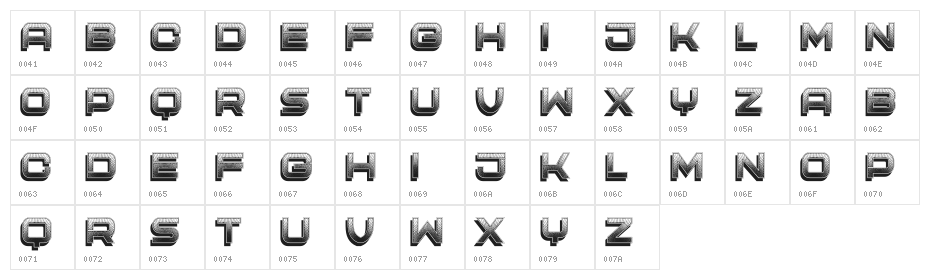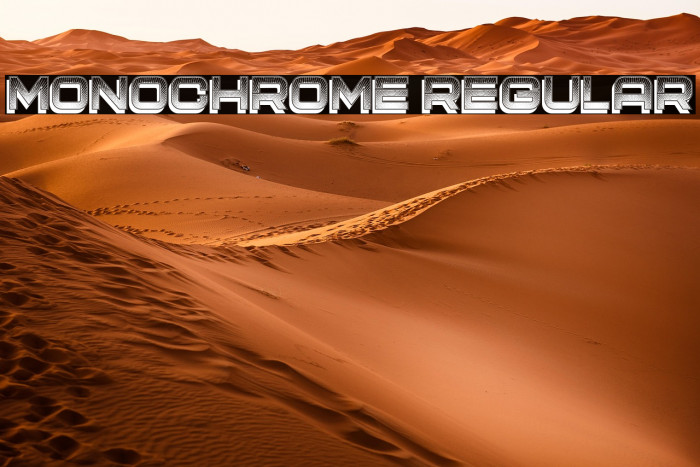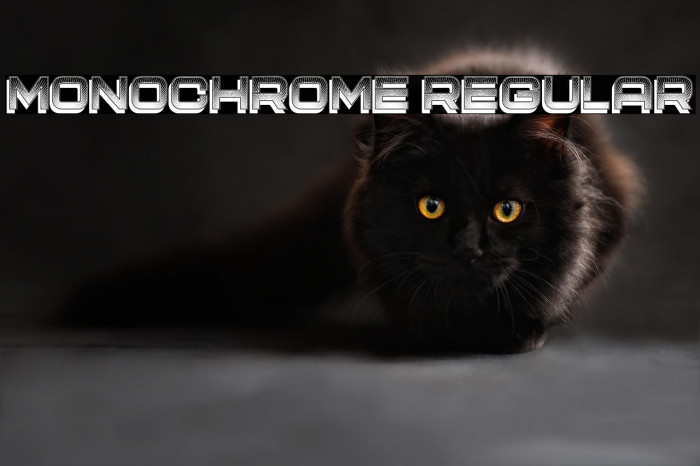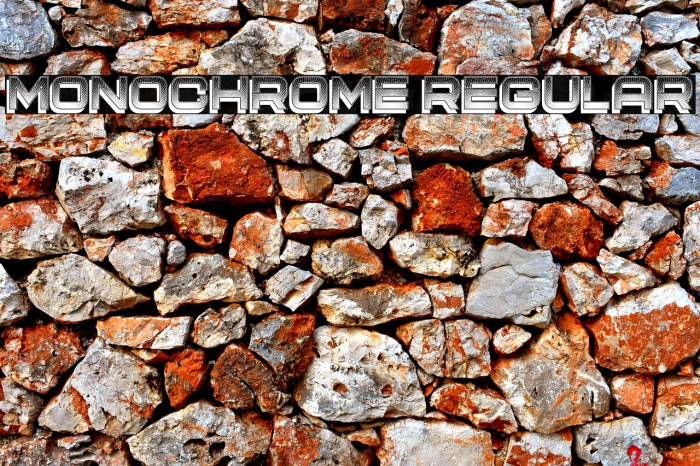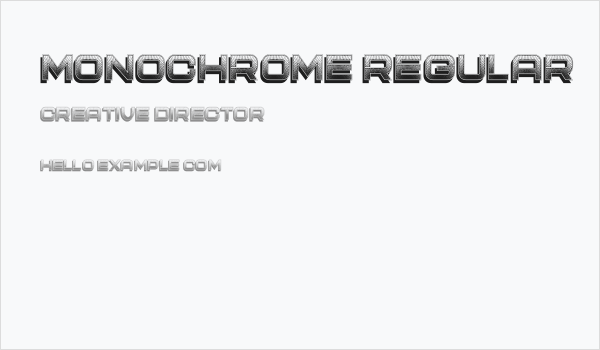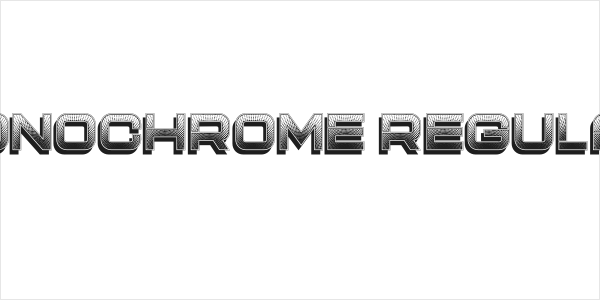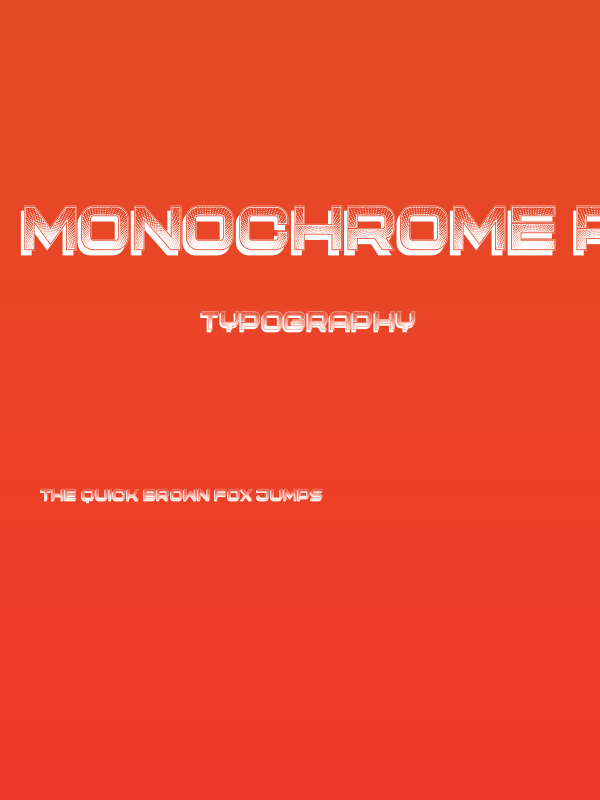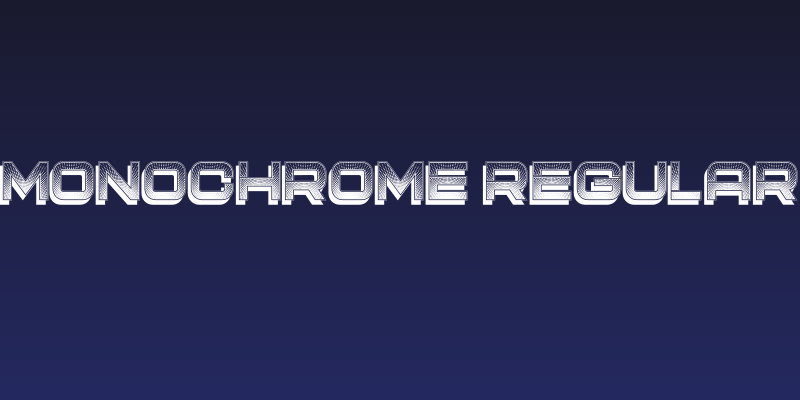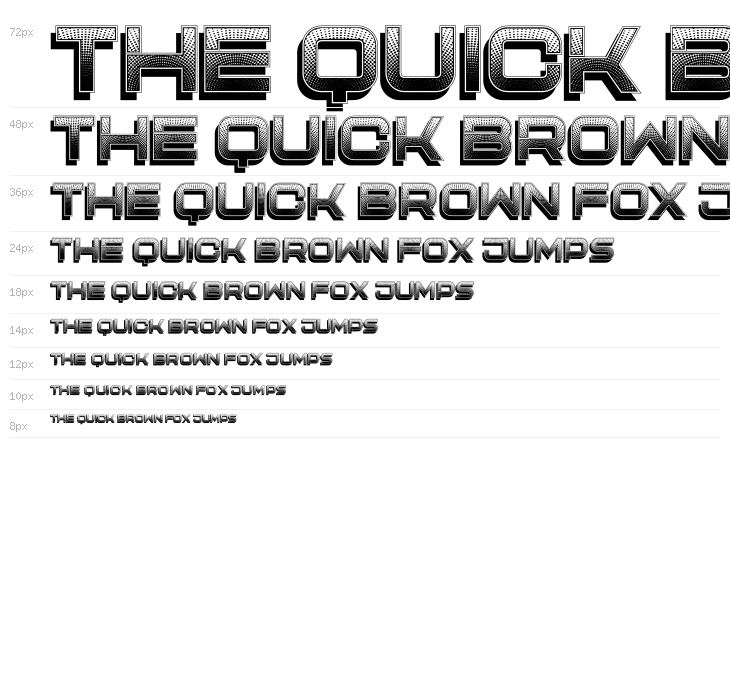
Monochrome Regular Font
Monochrome Regular Description
This font features a bold, geometric design with a distinct three-dimensional effect. Each character is outlined with a thick border, creating a shadow-like appearance that adds depth and dimension. The interior of the letters is filled with a textured pattern, enhancing the visual interest and giving it a unique, industrial feel. The overall style is modern and eye-catching, making it suitable for attention-grabbing displays. The uppercase letters are uniform in height, with sharp angles and clean lines that convey a sense of strength and stability. This font is ideal for projects that require a bold statement, such as posters, headlines, and branding materials.